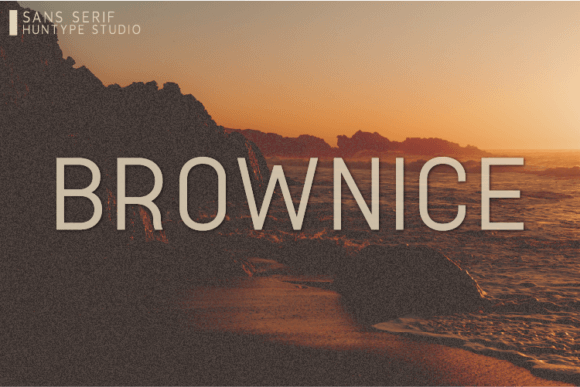
Enter the Brownice Font, a modern and elegant all-caps sans serif font that’s perfect for adding a touch of sophistication to your designs. With its smooth and clean lines, just a touch of contrast, and versatile style, the Brownice Font is an invaluable addition to any designer’s toolkit. Whether you’re working on a logo, branding, or web heading, this font is sure to bring your project to life.
Brownice Font Key Features
- Font Family: Brownice Font is a sans-serif font family designed to be clean and modern.
- Character Count: The font family includes a wide range of characters, including Latin, Cyrillic, and Greek alphabets.
- Font Size: Brownice Font is available in 8 font sizes, ranging from 8pt to 72pt, to cater to various design needs.
- Resolution: Designed to be scalable, Brownice Font is suitable for use at resolutions up to 300 DPI.
- Unique Characteristic: Brownice Font features a unique blend of geometric and organic elements, resulting in a distinctive and modern aesthetic.
Brownice Font Review
Overall, I think Brownice Font is a solid choice for designers looking for a clean and modern sans-serif font. ✨ One thing I appreciate about Brownice is its versatility – it works well in both digital and print applications, making it a great choice for branding and graphic design projects. ✨ The font’s x-height is well-proportioned, making it easy to read, even at small sizes. ✨ Additionally, Brownice has a wide range of language support, making it a great option for multilingual designs.
That being said, there are a few limitations to consider. ⚠️ One of the main drawbacks of Brownice is its lack of bold weights – the font only comes in regular and italic, which can make it difficult to create clear headings and emphasis. ⚠️ Additionally, some users have reported issues with the font’s kerning, particularly in certain combinations of letters. ⚠️ While these issues aren’t deal-breakers, they do require some extra attention and tweaking to get right.
- Modern sans-serif design
- Wide language support
- Easy to read, even at small sizes
- Works well in both digital and print applications
Notable Limitations:
- Lack of bold weights
- Kerning issues in certain letter combinations
Getting the Most Out of Brownice Font
To get the most out of the Brownice Font, use it for:
- Brand logos and identity
- Editorial content and magazine layouts
The Brownice Font is commonly used for:
- Health and wellness content
- Travel and hospitality branding
Alternatives to Brownice Font
Montserrat is a sans-serif font designed for digital use. It is clean, modern, and highly legible. Use Montserrat for body text, headings, and titles where a clean and modern aesthetic is desired. Compared to Brownice Font, Montserrat has a more geometric feel and is more suitable for digital applications.
Lato is a sans-serif font that combines the warmth of a humanist font with the cleanliness of a sans-serif. It is highly legible and versatile. Use Lato for body text, headings, and titles where a balanced and elegant aesthetic is desired. Compared to Brownice Font, Lato has a more refined and sophisticated feel.
Open Sans is a modern sans-serif font that is highly legible and versatile. It is designed to work well in digital applications and is optimized for mobile devices. Use Open Sans for body text, headings, and titles where a clean and modern aesthetic is desired. Compared to Brownice Font, Open Sans has a more minimalist feel and is more suitable for digital applications.